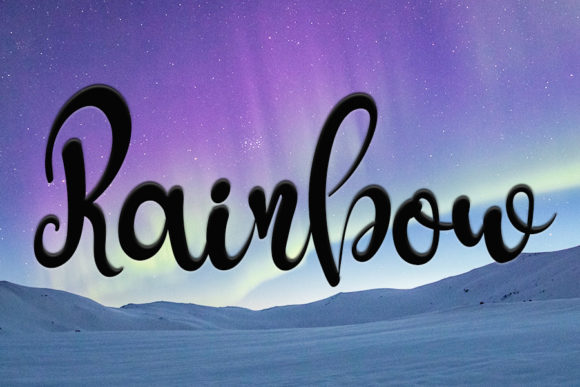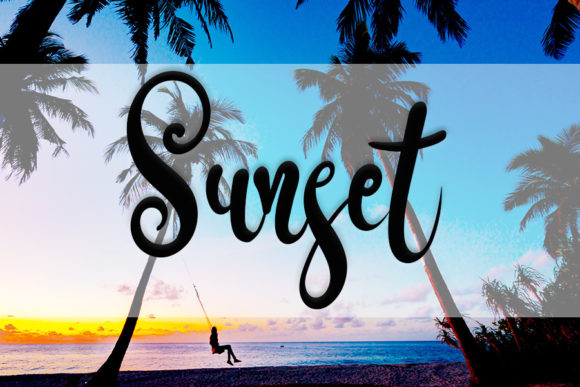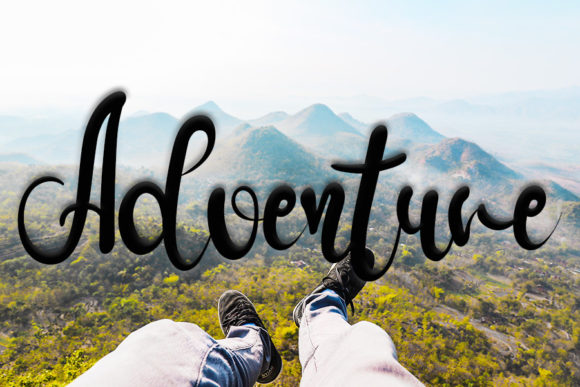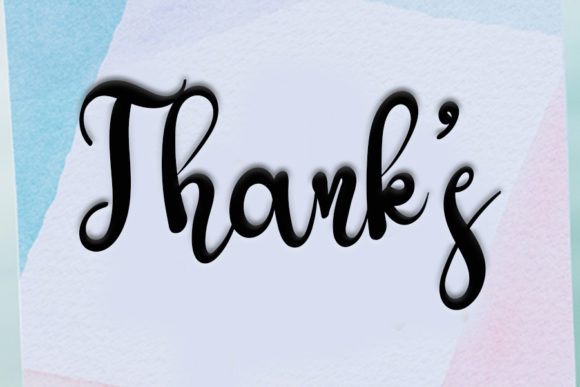
Getting Lost in the Delicate Details of Handwritten Fonts
Have you ever found yourself sitting in a quaint little café, surrounded by the soft hum of espresso machines and the gentle chatter of strangers-turned-friends? It’s in moments like these that I find myself lost in the world of typography, searching for that perfect font to bring a design to life. And then, it hits me – the perfect blend of elegance and whimsy that sets the heart aflutter.
Enter the Arowana Font, a sweet and delicate handwritten font that’s tailor-made for adding a romantic, personalized touch to any design. Whether you’re crafting wedding invitations, cards, or any other project that requires a dash of sweetness, this font is sure to delight. As a designer, you’ll appreciate the value of having a versatile font like Arowana Font at your fingertips, allowing you to add a touch of personality to even the most mundane designs.
Arowana Font Key Features
- Unique Characteristics: The font features a distinctive, hand-drawn design with a mix of modern and traditional elements, giving it a unique aesthetic that sets it apart from other fonts.
Arowana Font Review
I’ve had the chance to work with the Arowana font, and I must say it’s a mixed bag. Here are my thoughts:
- ✨ Unique style: The Arowana font has a distinctive look that sets it apart from more traditional fonts. It’s perfect for designers looking for something that stands out.
- ✨ Versatile: Despite its unusual style, the font is surprisingly versatile and can be used in a variety of projects, from logos to body text.
- ⚠️ Readability issues: While the font is eye-catching, it can be challenging to read, especially in smaller sizes or for extended periods of time.
- ⚠️ Limited character set: The font’s character set is somewhat limited, which may cause issues when working with certain languages or special characters.
Overall, the Arowana font is an interesting choice for designers who want to add some flair to their projects. However, it’s essential to weigh the benefits against the potential drawbacks, particularly when it comes to readability and versatility. With careful use, the Arowana font can be a great addition to your design toolkit.
The Arowana font is commonly used in:
- Business cards and branding
- Graphic design and digital art
Remember to use the Arowana font in a way that complements your design and effectively communicates your message.